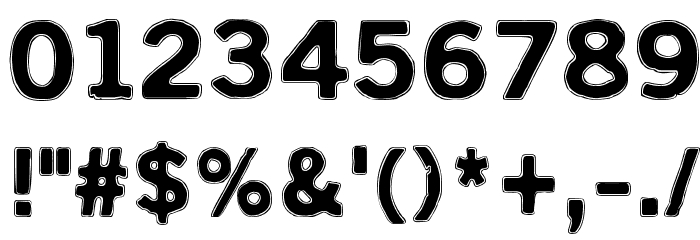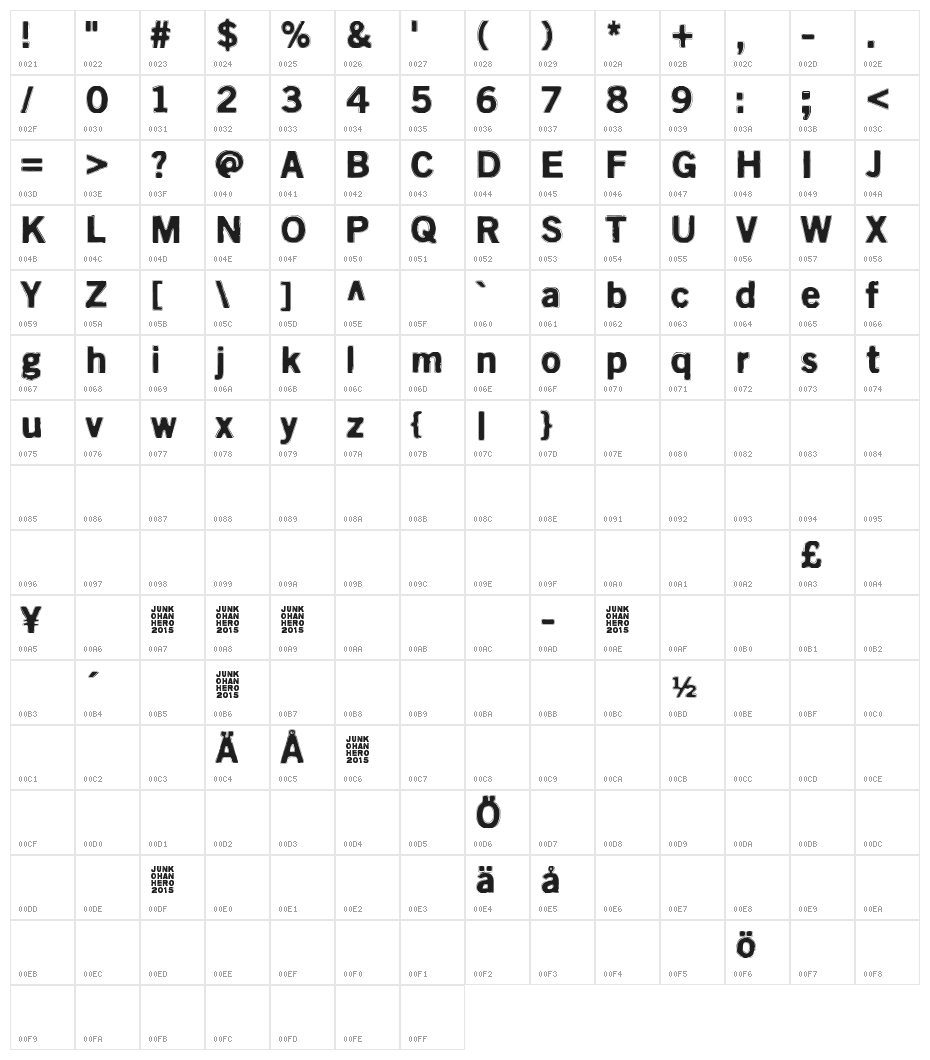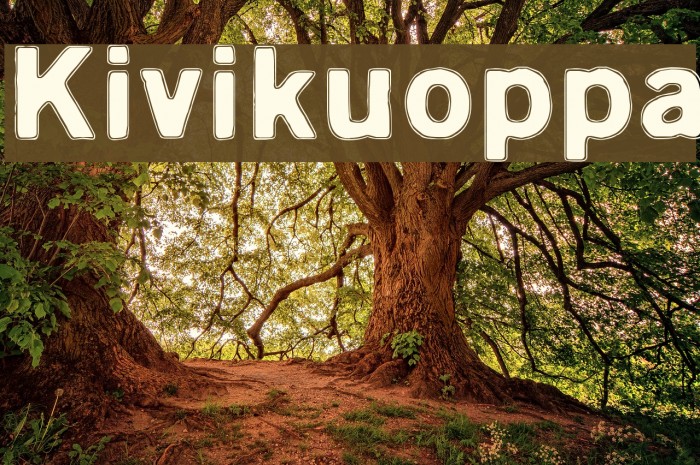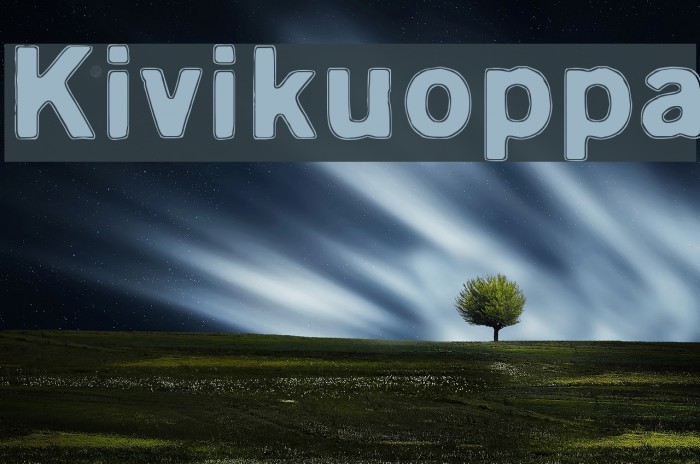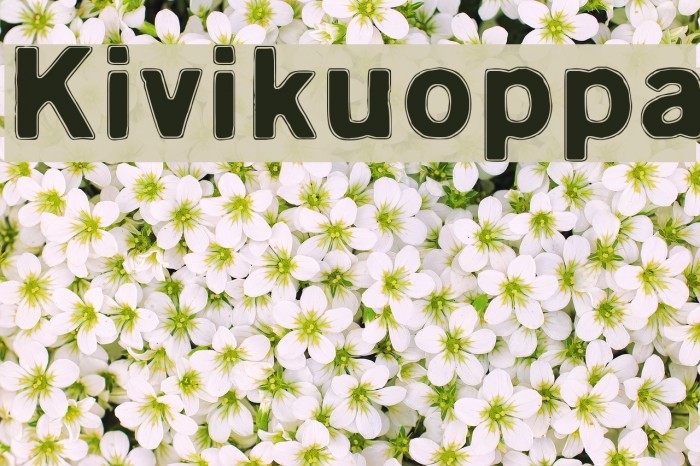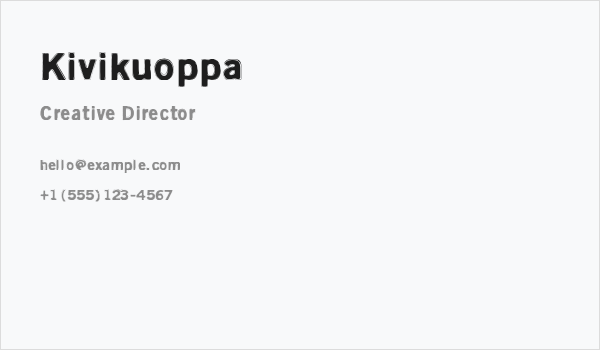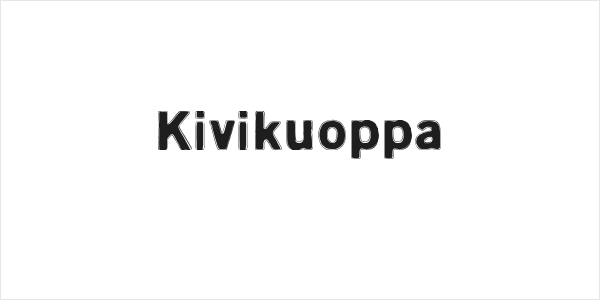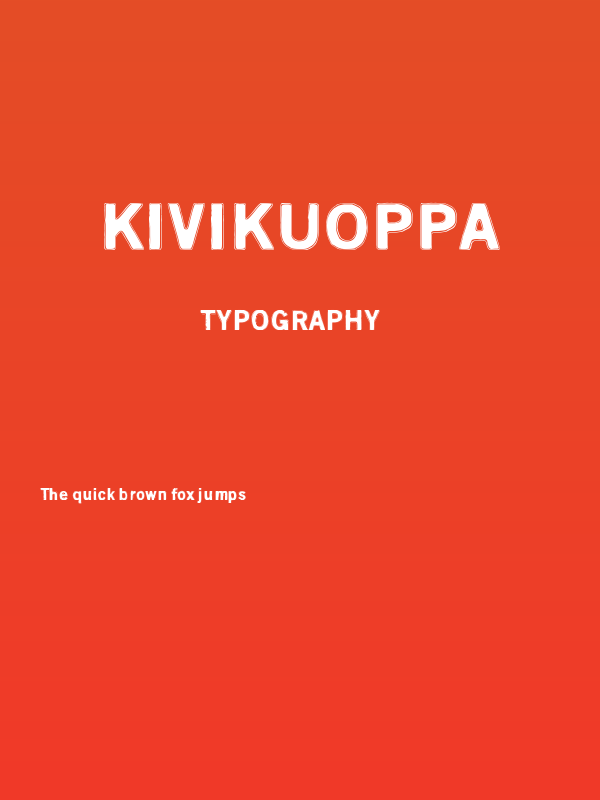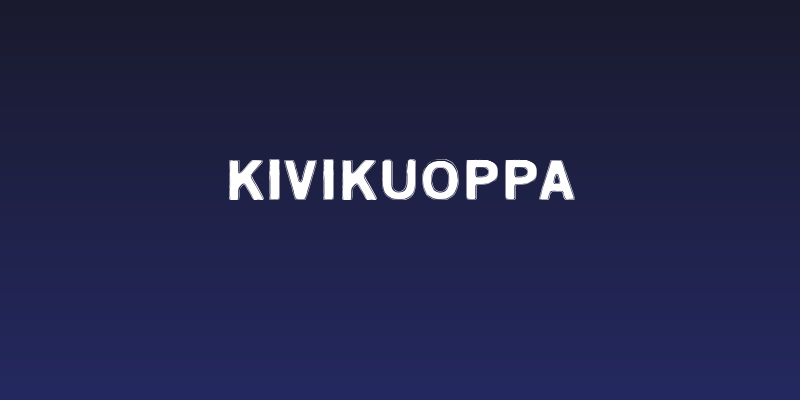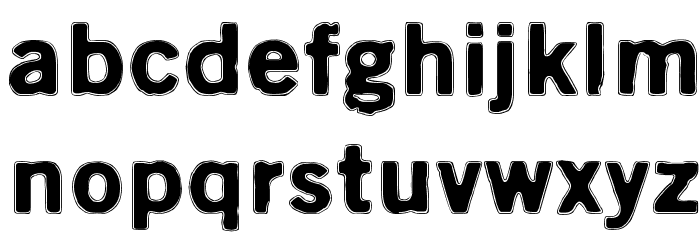
Kivikuoppa Font
Kivikuoppa Description
This font features a bold and robust style with a strong presence. The characters are uniformly thick, giving it a solid and impactful look. The edges are slightly rounded, adding a touch of softness to the otherwise strong appearance. The uppercase and lowercase letters maintain a consistent weight, ensuring readability and balance. The numerals and special characters are designed to match the boldness of the alphabet, making them stand out effectively. This font is ideal for making a statement, with its clear and assertive design.
| Proposed Projects | Ideal for headlines, posters, branding, and any project requiring a strong visual impact. |